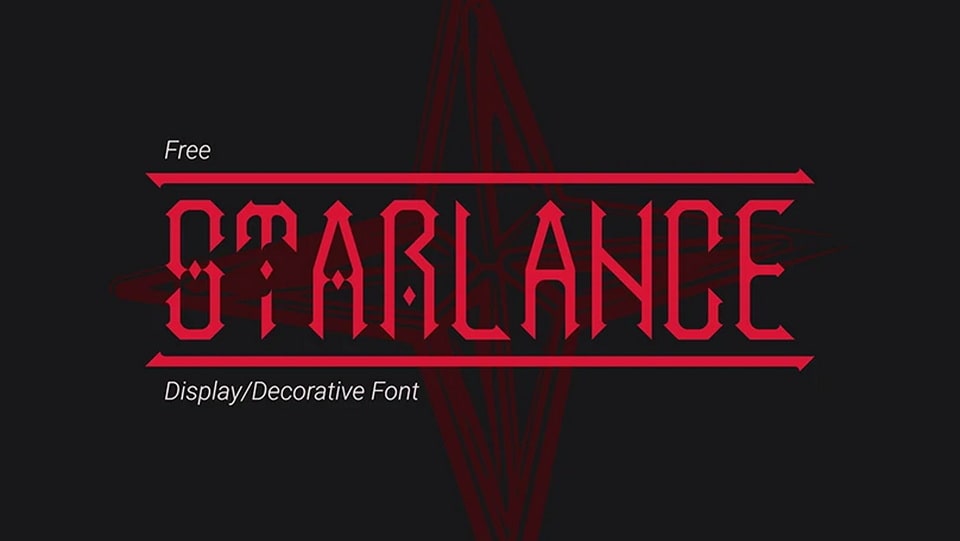
Download Starlance font, a bold and dramatic display typeface that combines gothic-inspired elements with modern decorative flair and striking sharp, angular design.